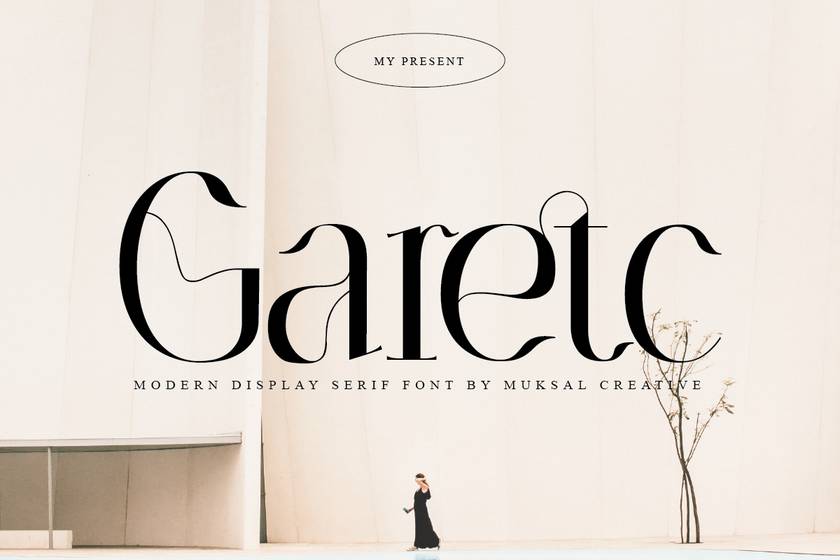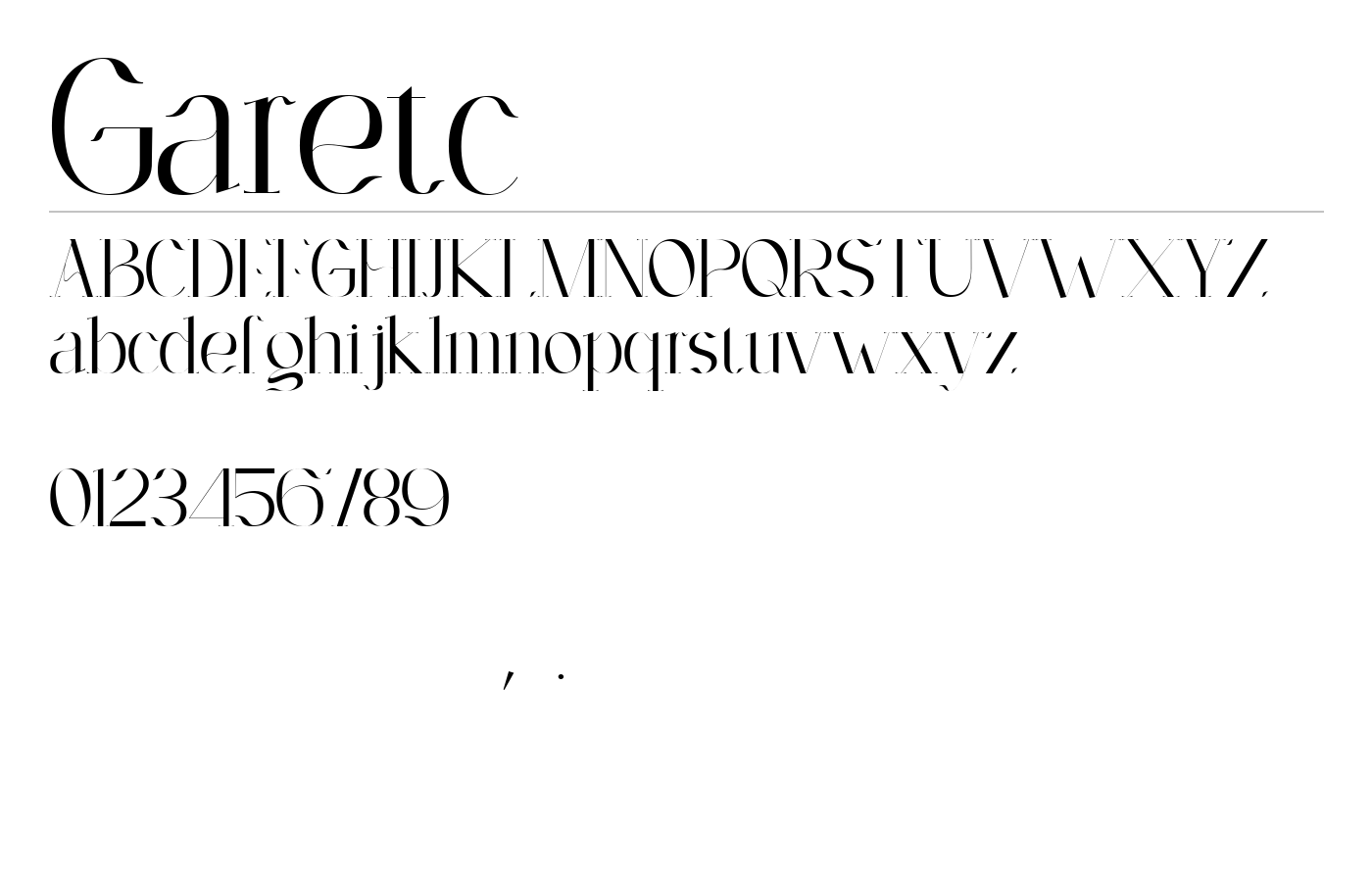
Garetc is a modern serif font with elegant, thin strokes and high contrast between thick and thin lines, giving it a sophisticated and refined appearance. Its tall, narrow letterforms and delicate serifs create a stylish, upscale feel, making it ideal for luxury branding, fashion editorial, and high-end packaging. This font works best in headlines and logos where its unique personality and graceful details can shine.
Garetc Font